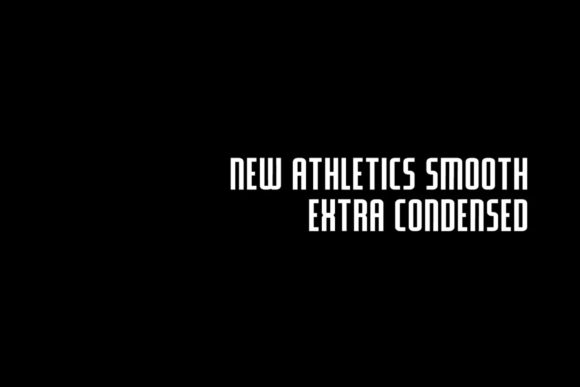
Behold, the New Athletics Smooth Font - a font born from the fusion of athleticism and aesthetics, designed to infuse your designs with dynamism and power. Crafted by the ingenious minds at Alphabet Agency, this stunning display font embodies the raw energy of sports. Unleash your creativity and experience the boundless possibilities that await you.
This font is more than just a collection of characters; it's a gateway to a world of captivating designs. Its bold, confident strokes evoke the thrill of competition - perfect for branding, posters, headlines, and any project that demands attention. Whether you're designing for sports websites, jerseys, or eye-catching social media graphics, New Athletics Smooth is your ultimate weapon.
Immerse yourself in the world of sports, where passion, dedication, and victory collide. With New Athletics Smooth as your design companion, you'll capture the essence of athleticism and leave a lasting impression on your audience. It's not just a font; it's a celebration of the human spirit and the relentless pursuit of excellence.
Let your imagination run wild as you explore the versatility of this font. Its bold strokes command attention, while its smooth curves add a touch of elegance. Experiment with different sizes, colors, and layouts to create designs that resonate with your audience.
Join the league of creative visionaries who have embraced New Athletics Smooth and transformed their designs into masterpieces. Experience the rush of adrenaline as your creations come to life, exuding power and grace. Don't settle for ordinary fonts; embrace the extraordinary with New Athletics Smooth.